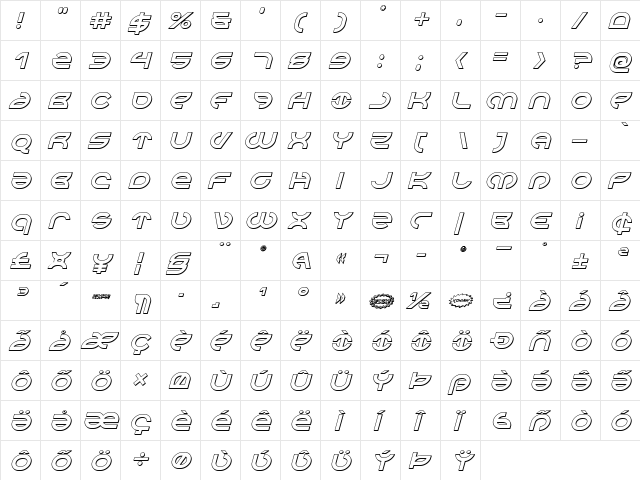
Aetherfox 3D Italic Italic
Design Context for Aetherfox 3D Italic Typeface
Aetherfox 3D Italic offers clean, dependable letterforms without strong stylistic allegiance, making it a practical choice for designers who need flexibility. The dynamic lean of this cut emphasises speed and emphasis in any layout.
Pro Tip: Try Aetherfox 3D Italic for annotation and caption copy alongside an upright companion — the contrast in angle creates a dynamic but ordered typographic system.